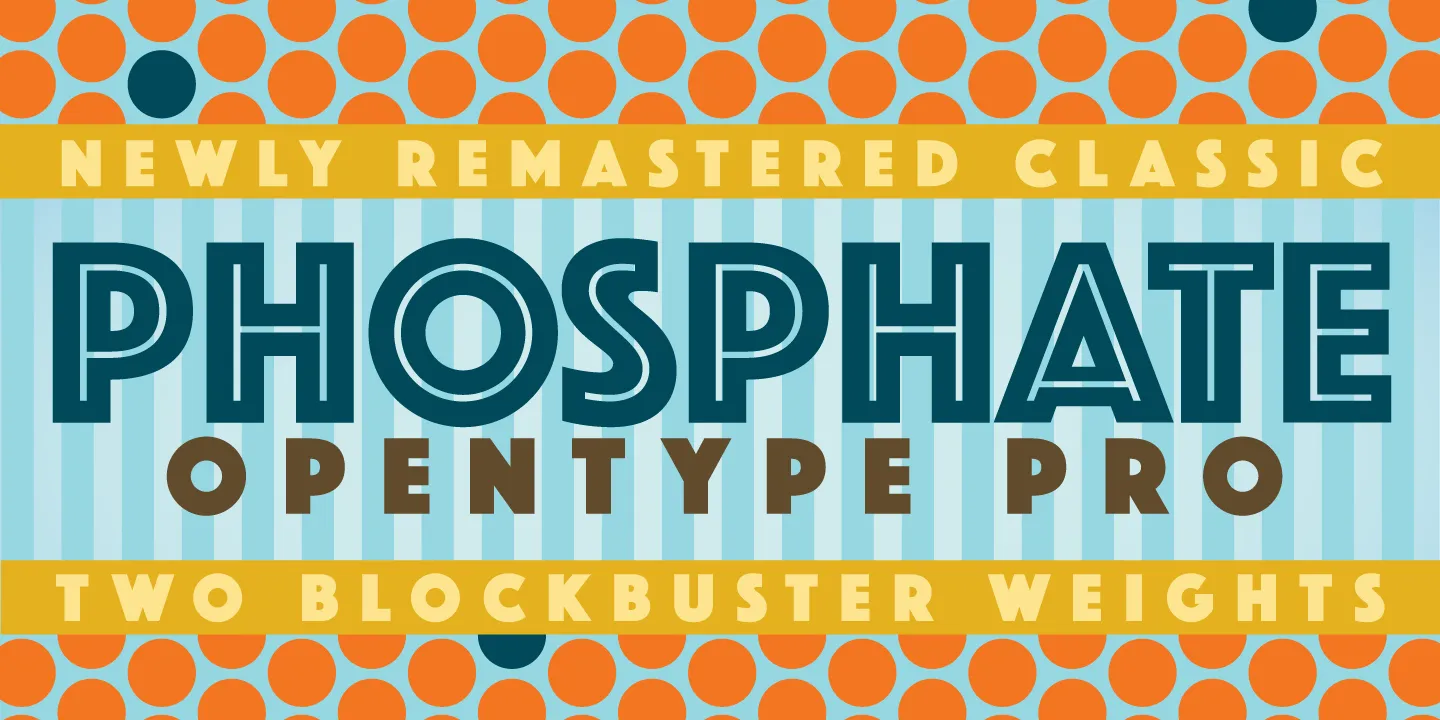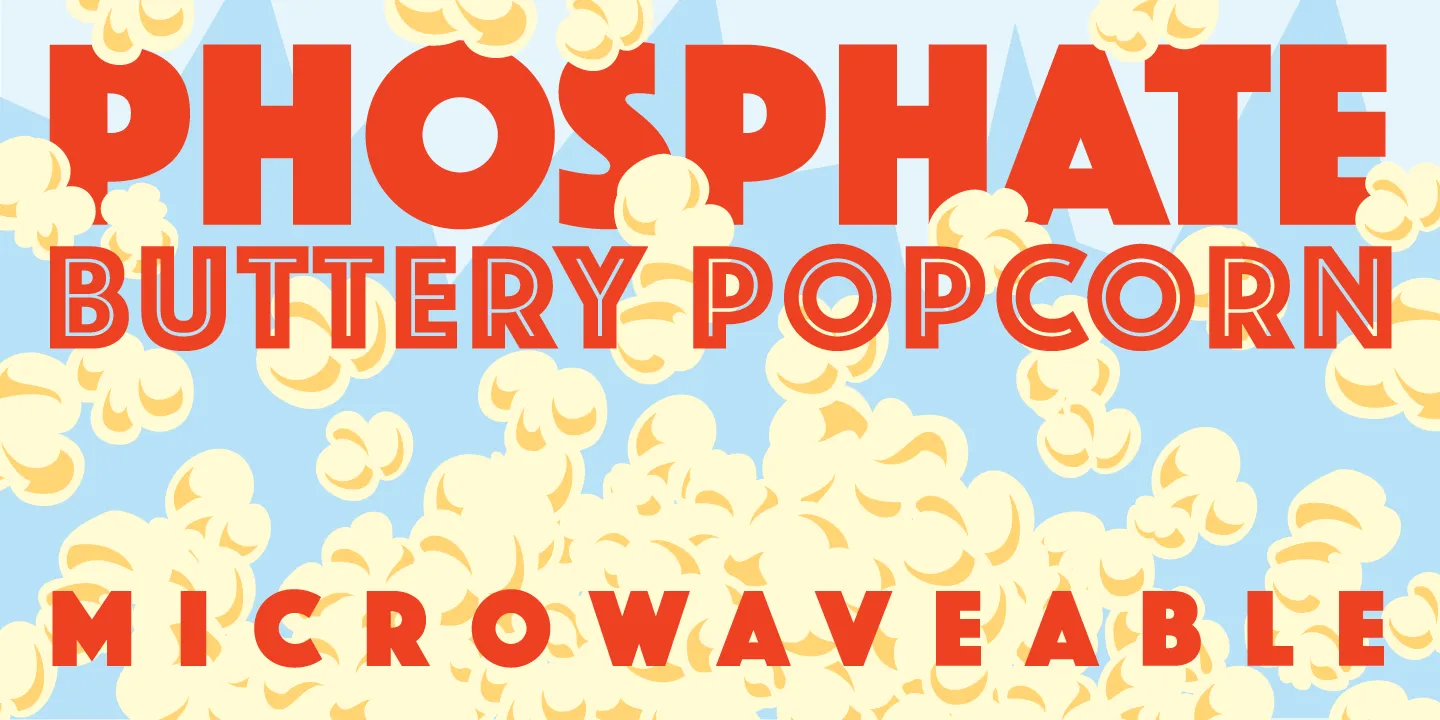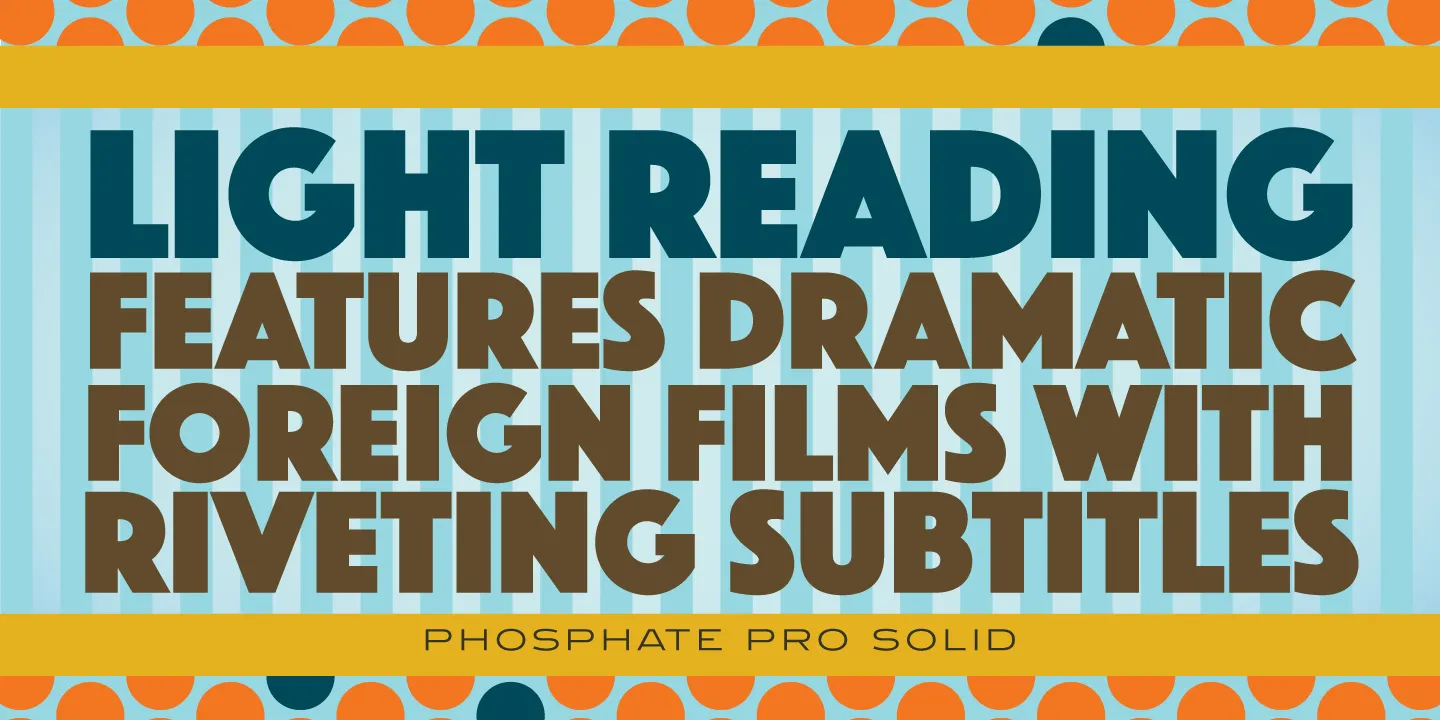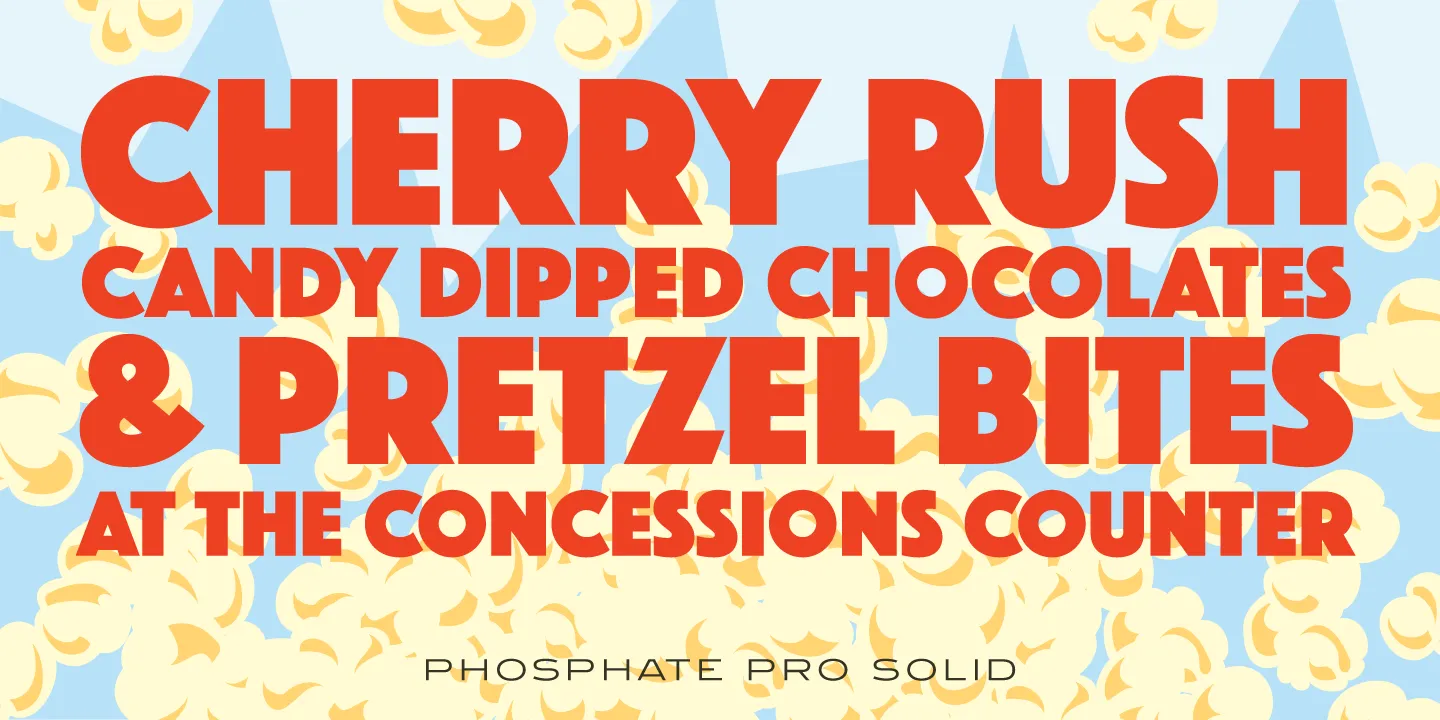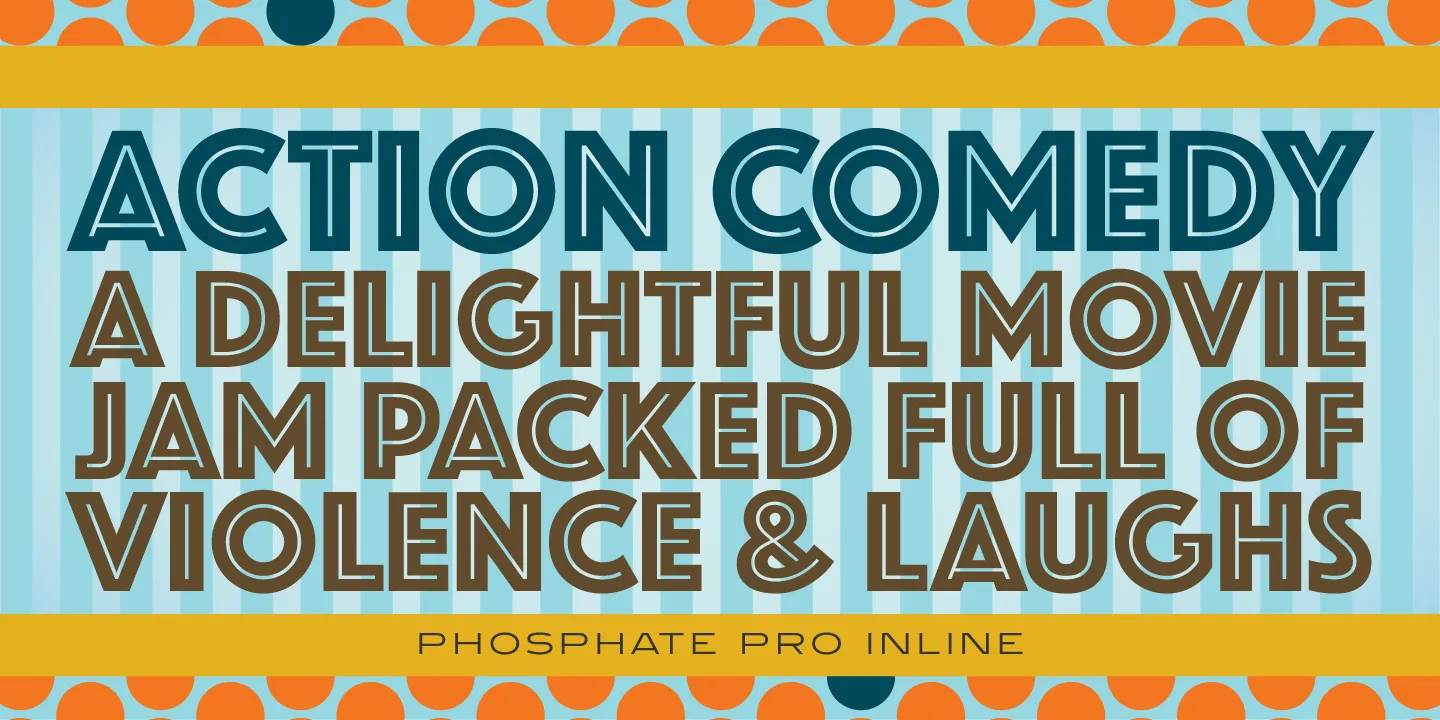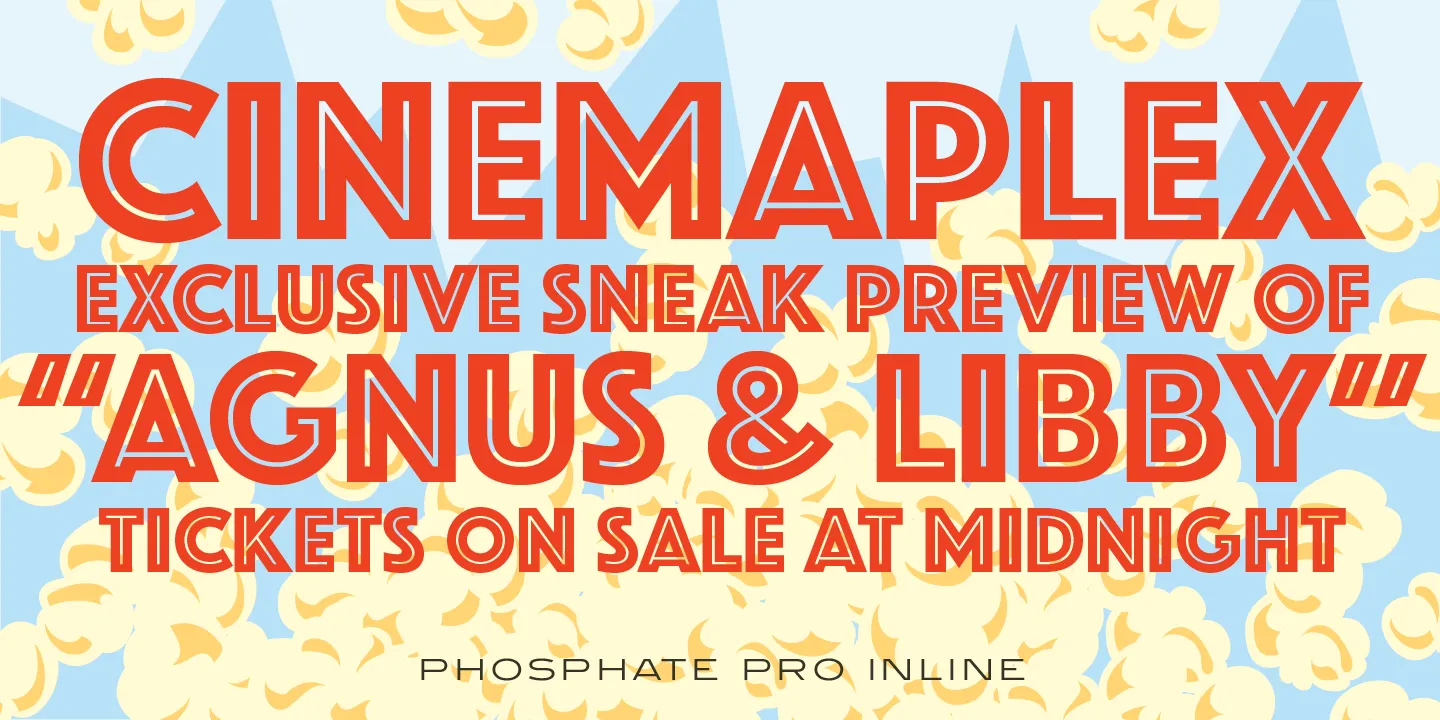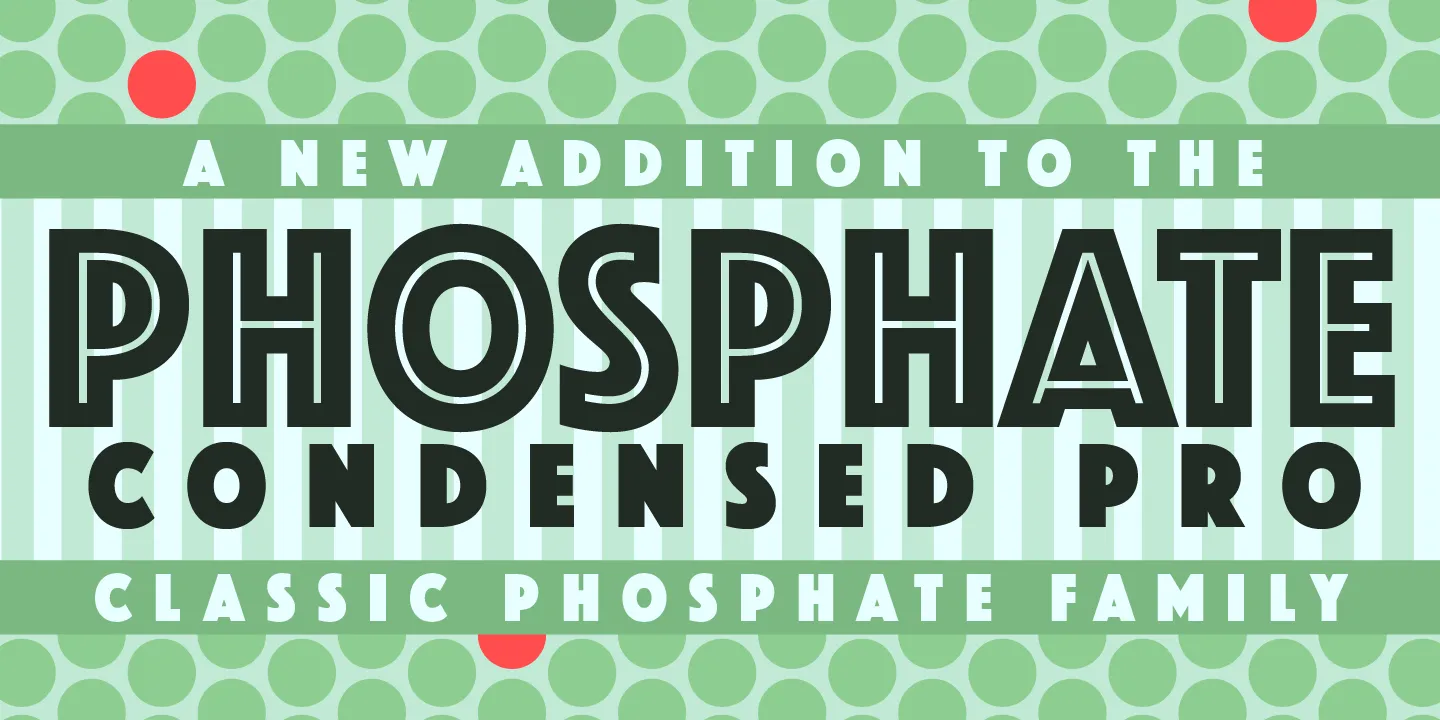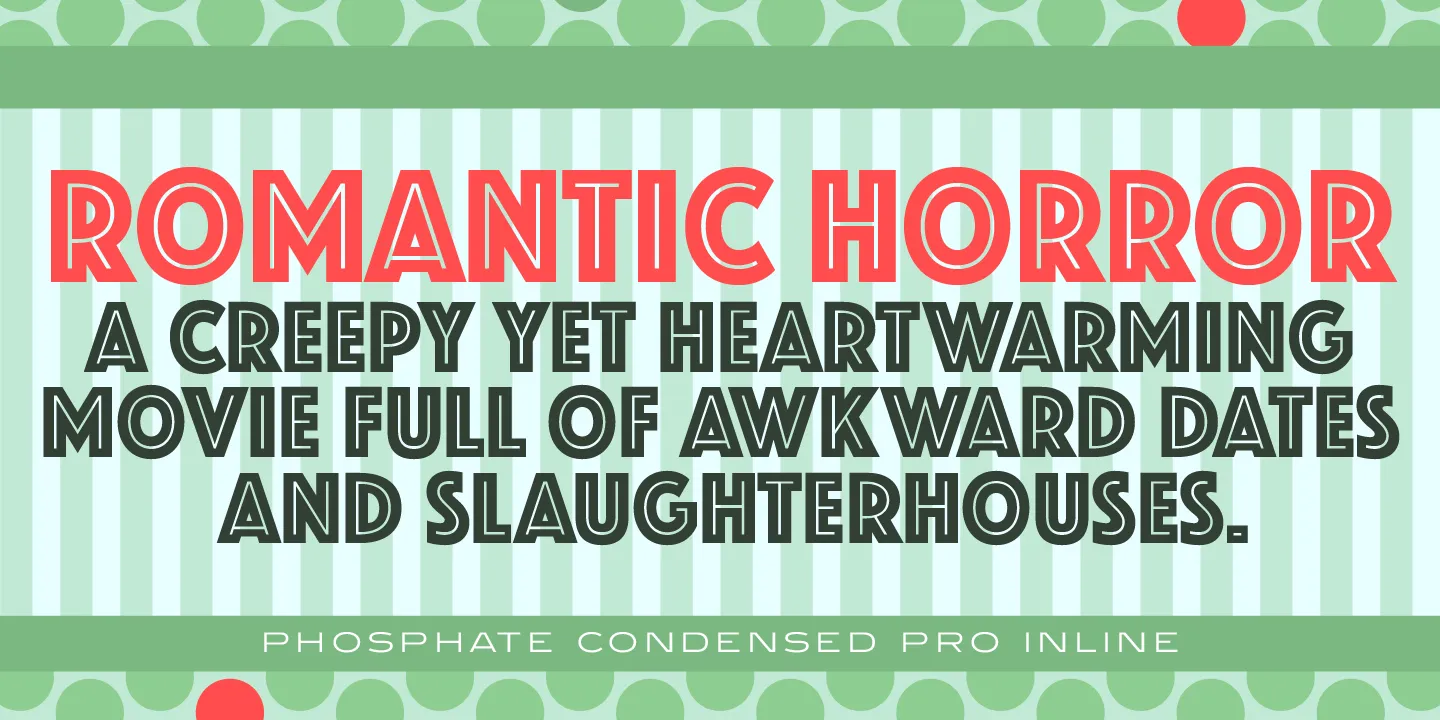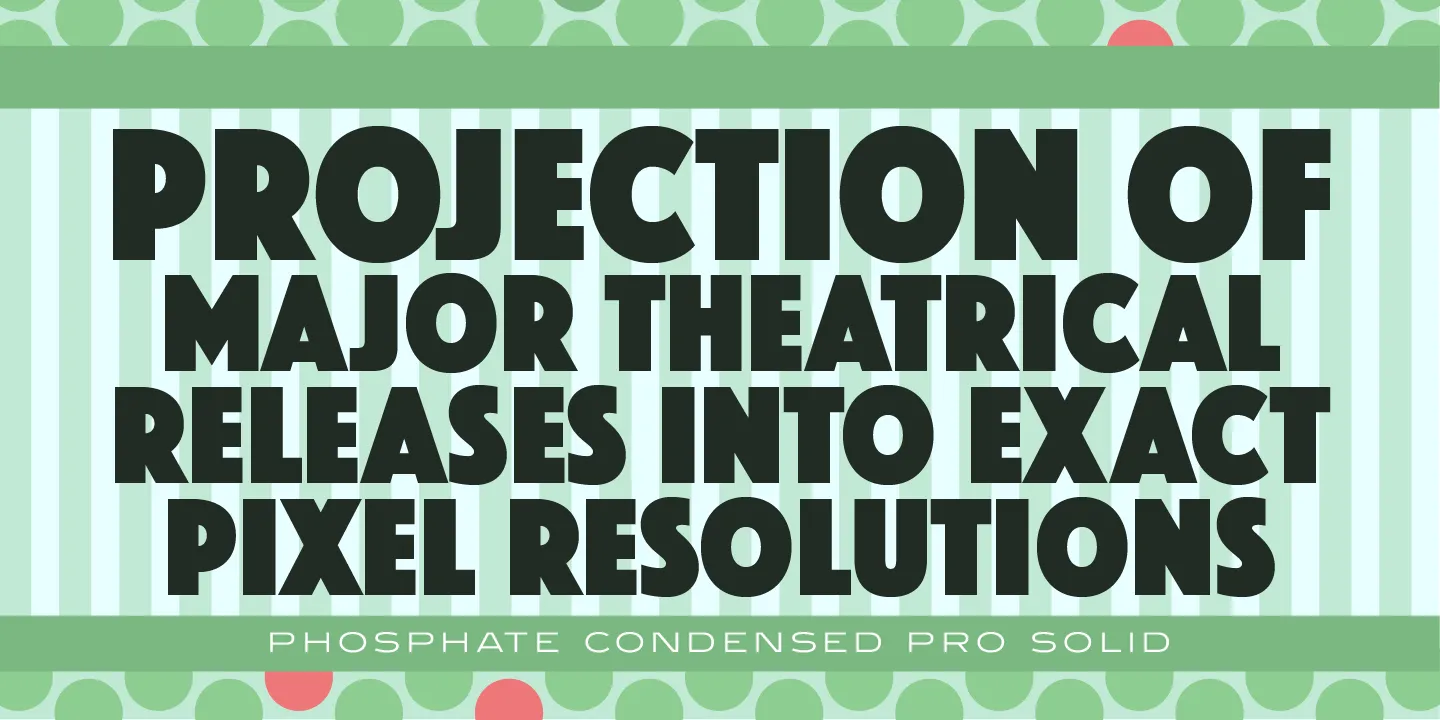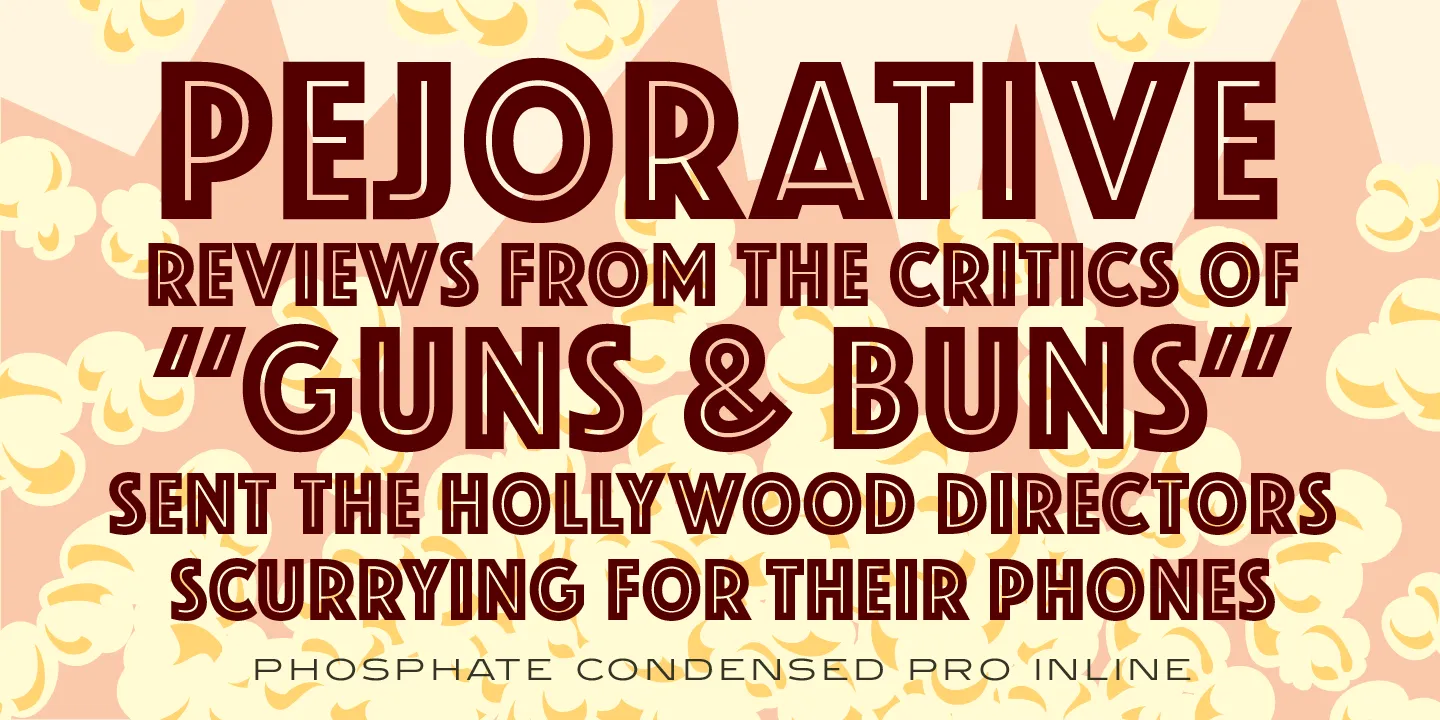
Phosphate Font Family
Phosphate is an all-caps sans serif font family with an inline weight, and was created by Steve Jackaman (ITF) and Ashley Muir in 2010. The original Phosphate was published by International TypeFounders, and the family was based on the ‘Phosphor’ typeface created by Jakob Erbar for Ludwig and Mayer, circa 1922-30. Jackaman created a condensed variant, ‘Phosphate Condensed,’ in 2017. Phosphate has incredible presence, and its power shines in display format. Apple, who is notoriously selective about their software choices, included Phosphate in the system fonts for Apple’s OS X 10.10 Yosemite.
OpenType Features
• Common Ligatures
• Fractions
• Ordinal Numerals
• Stylistic Alternates
• Stylistic Sets
• Subscript
• Superscript